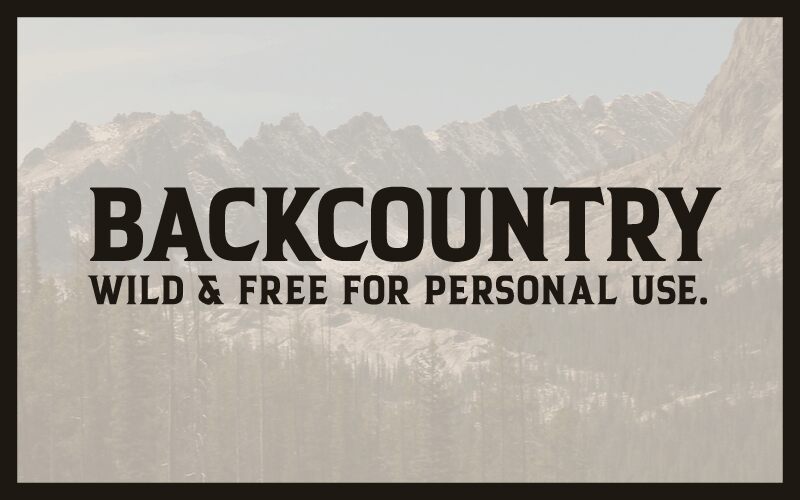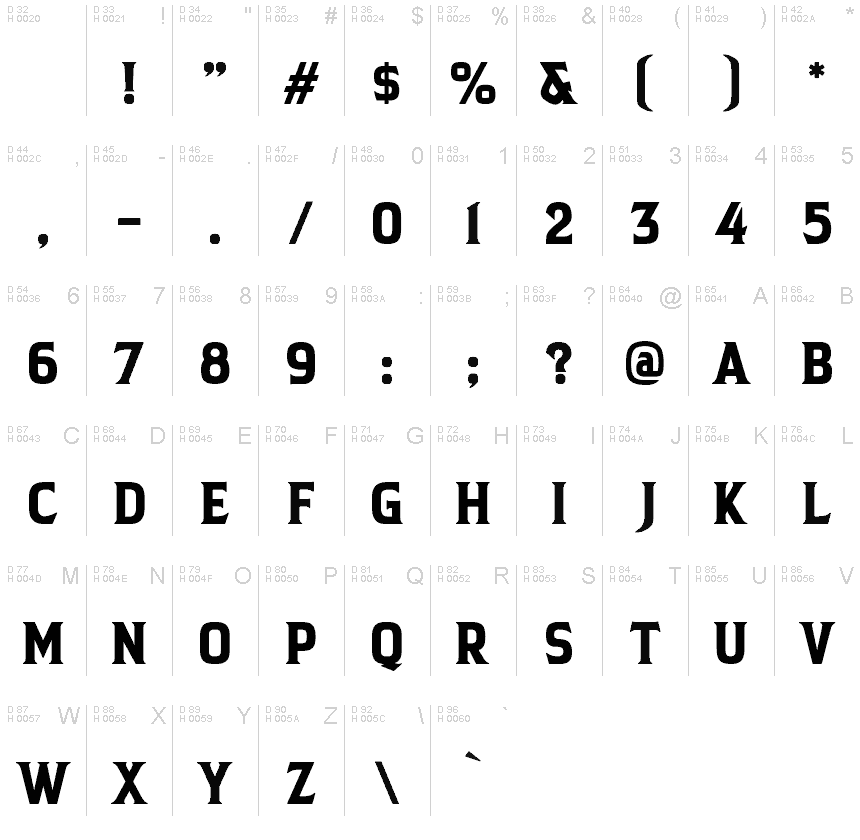
BACKCOUNTRY Regular
Backcountry is a bold and adventurous typeface. The font it's free like the wind if one want's to design with it for non commercial use. And best of all, it's cheap for commercial use. Starting at only 5 USD for small businesses.
BACKCOUNTRY Regular is a font by HENRIavecunK, designed by HENRIavecunK in 2018.